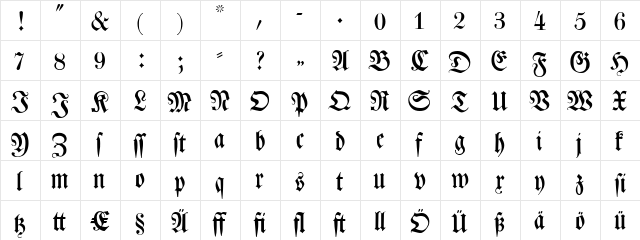
Leibniz-Fraktur Regular
Design Context for Leibniz-Fraktur Typeface
Leibniz-Fraktur channels the dramatic heritage of Fraktur and Gothic scripts, bringing a sense of historical gravitas to any design.
A natural fit for music packaging, gothic editorial design, and any project that needs historical weight.
Font Pairing: Pair with a clean neutral sans-serif for body copy to let Leibniz-Fraktur's character lead without overwhelming the composition.
Pro Tip: Reserve Leibniz-Fraktur for display and logo use — pair it with a clean sans-serif for body copy to prevent the composition from feeling oppressive.